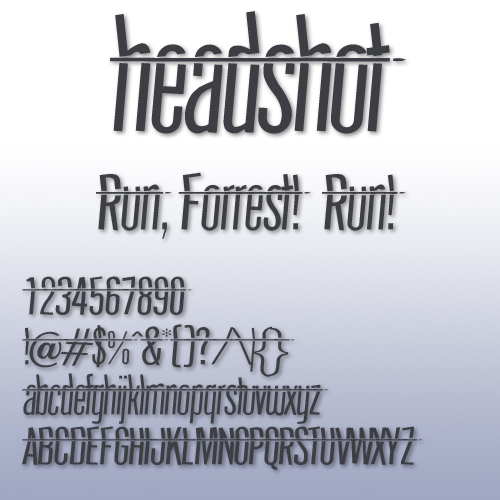
HeadShot by JBensch is a free distorted display font with an extremely narrow, vertically stretched build. Its letters lean and buckle at uneven angles, with blunt cuts and abrupt changes in width. This tense, deliberately unstable drawing gives the alphabet a damaged mechanical edge.
Photography with harsh crops and fractured portraiture makes a convincing partner for this lettering in music posters, fashion campaigns, and thriller graphics. Magazine cover lines can become part of the artwork itself.